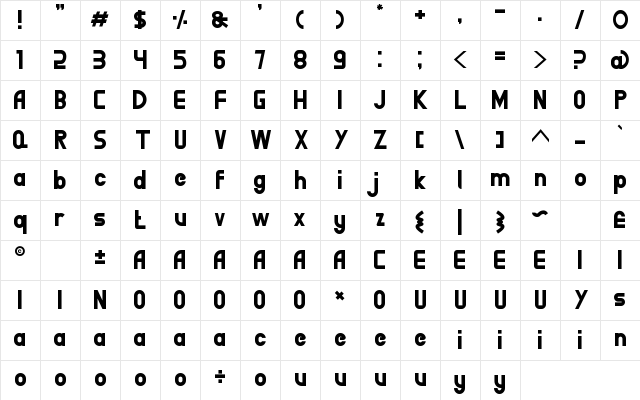
BigBOBY Demo Regular Free Font
BigBOBY Demo Regular
Foundry: Edric Studio
Designer: Ega Nugraha
Design Context for BigBOBY Demo
BigBOBY Demo is a composed and adaptable typeface that performs quietly and consistently across a wide range of design contexts.